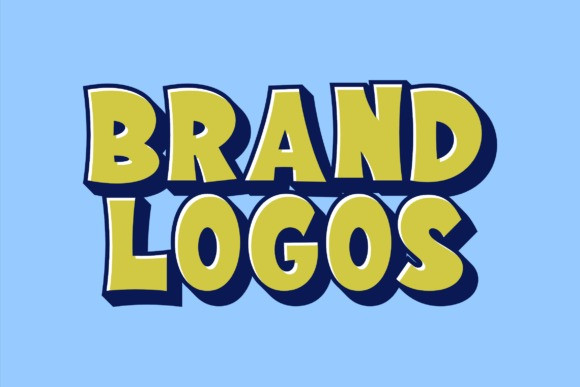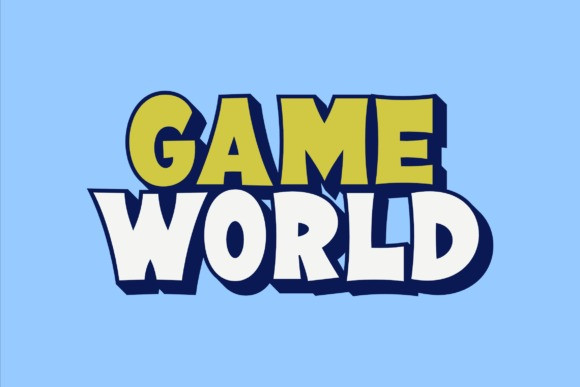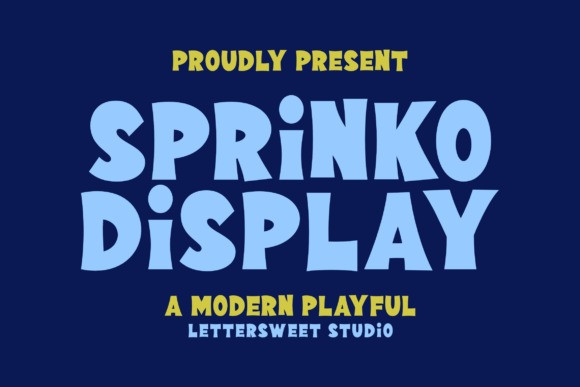
Sprinko Font
Sprinko Font is a bold, modern playful display font designed to bring joy and personality to your designs. With its chunky shapes, soft curves, and fun character style, this typeface instantly grabs attention and creates a friendly, energetic vibe.
Perfect for kids projects, branding, posters, logos, packaging, social media graphics, book covers, headlines, and playful merchandise designs. Sprinko delivers strong visual impact while staying readable and versatile.
If you’re looking for a fun, eye-catching display font that stands out in both digital and print projects, Sprinko Display is your perfect choice.